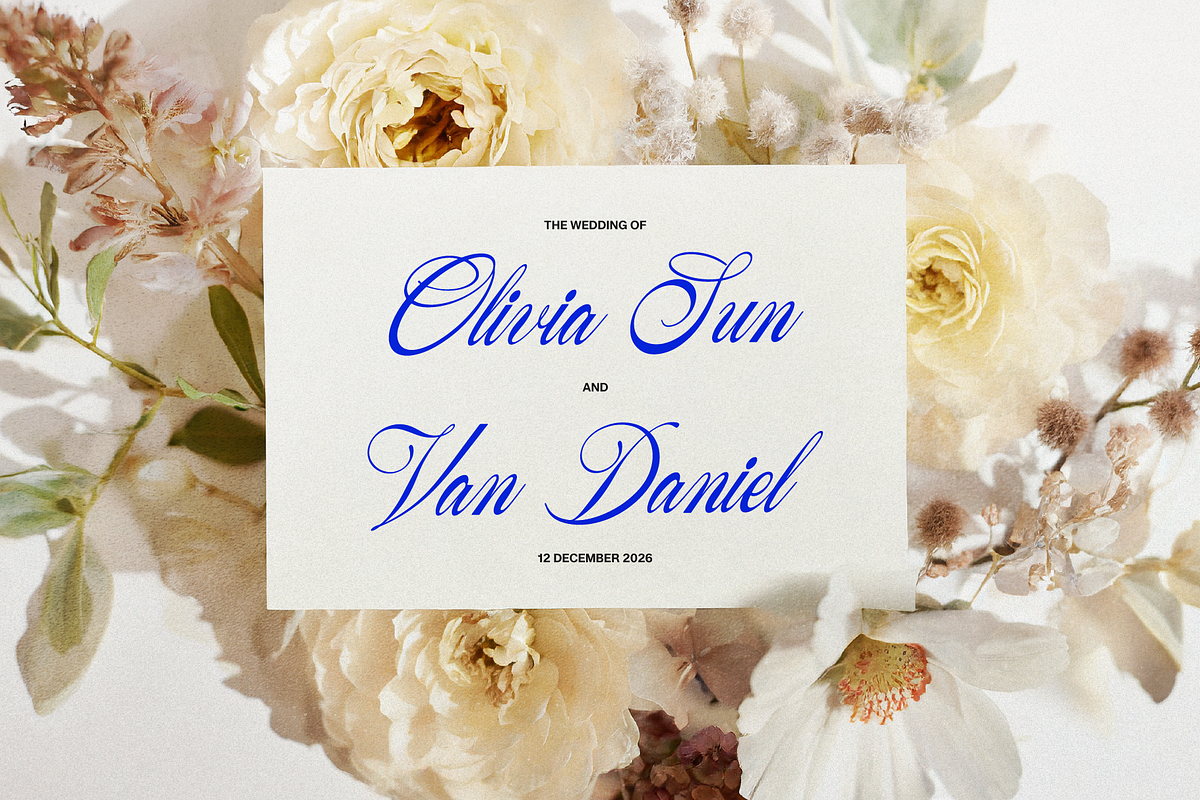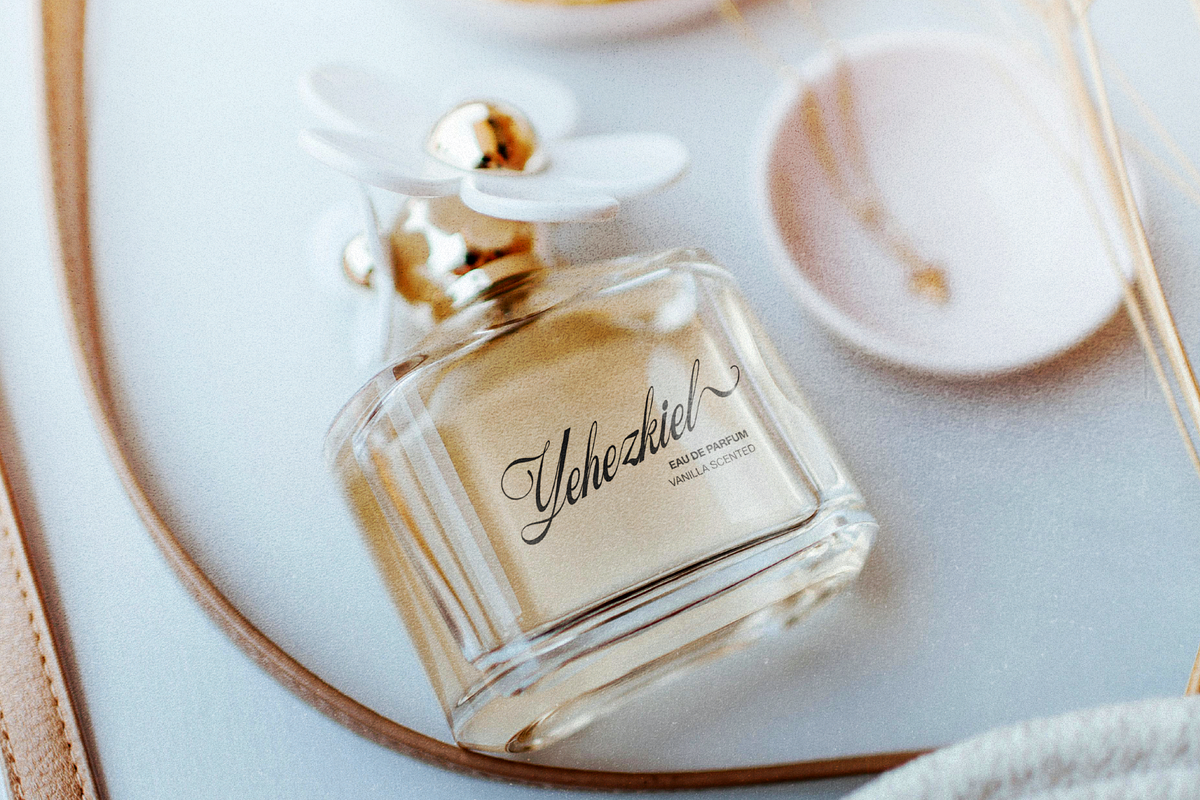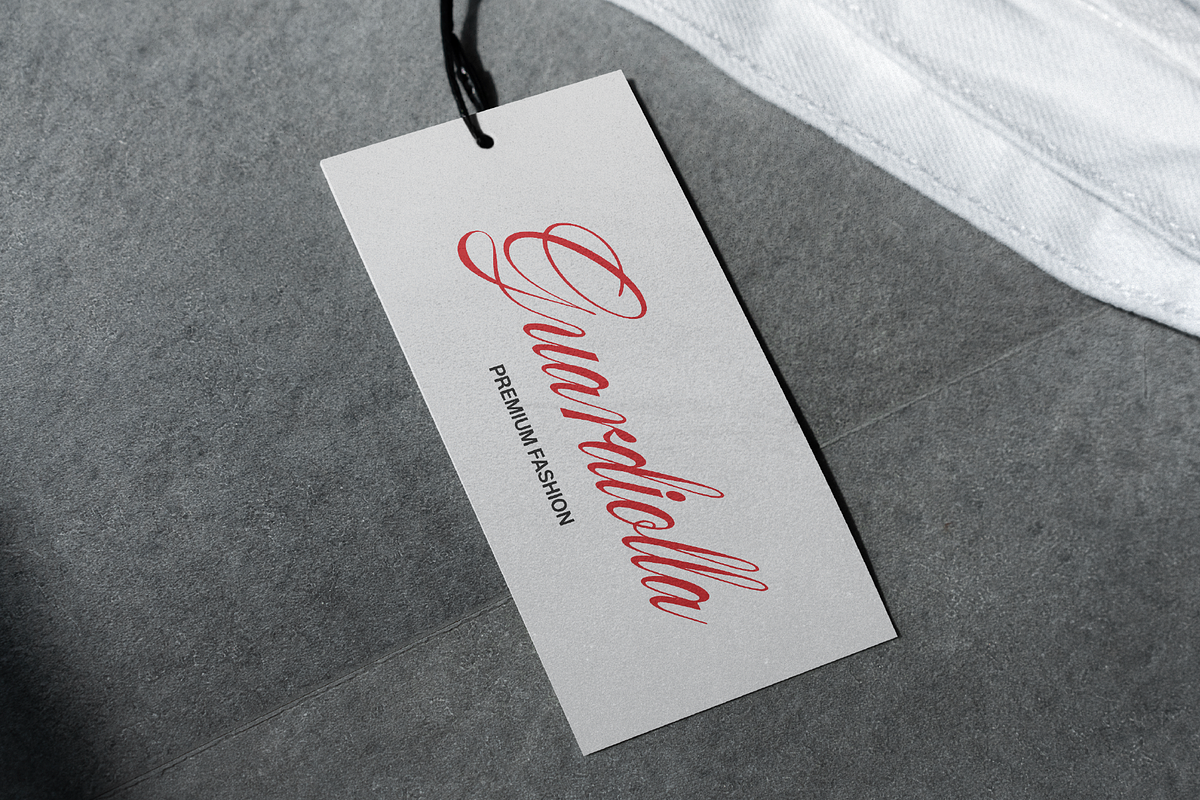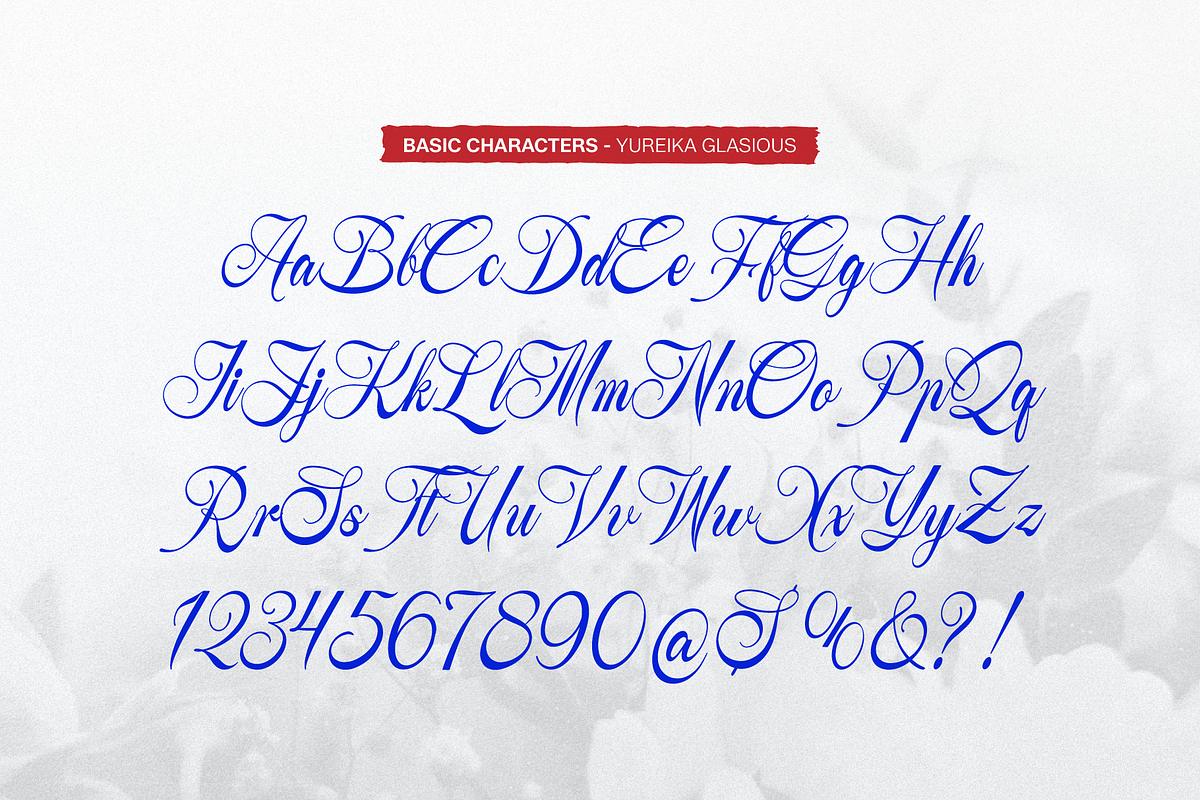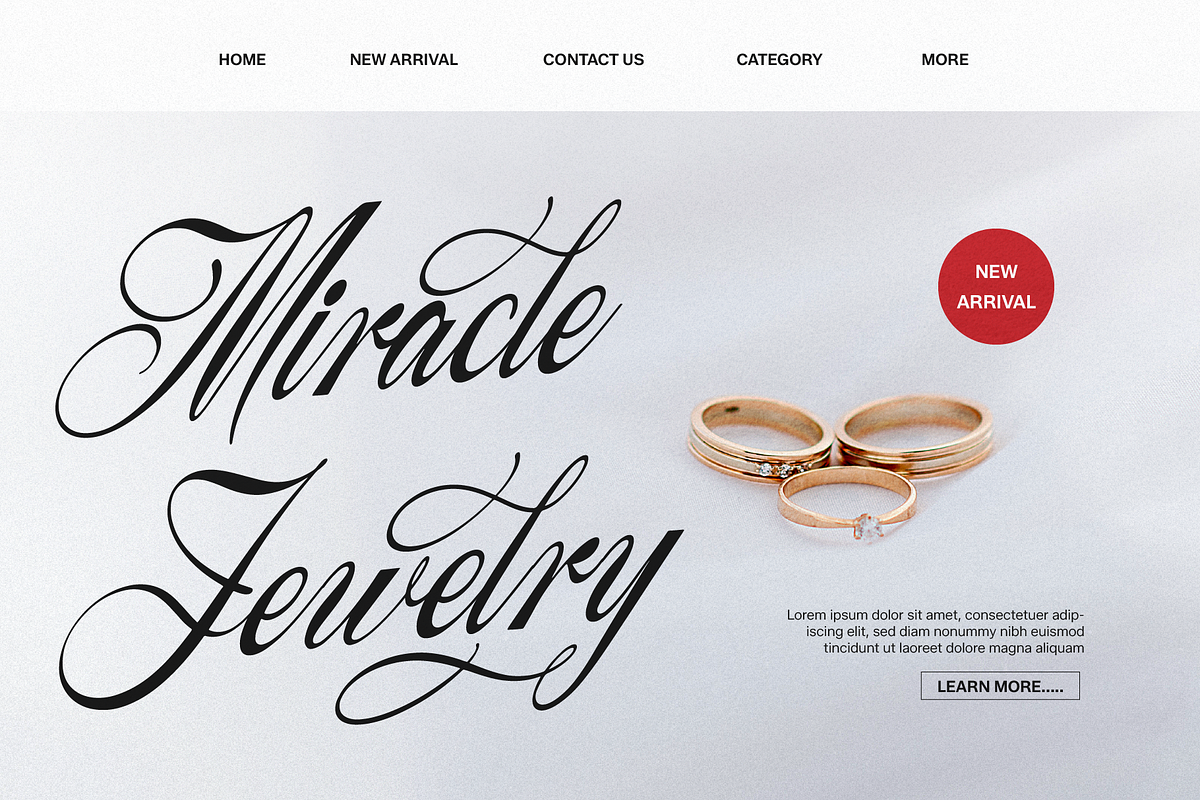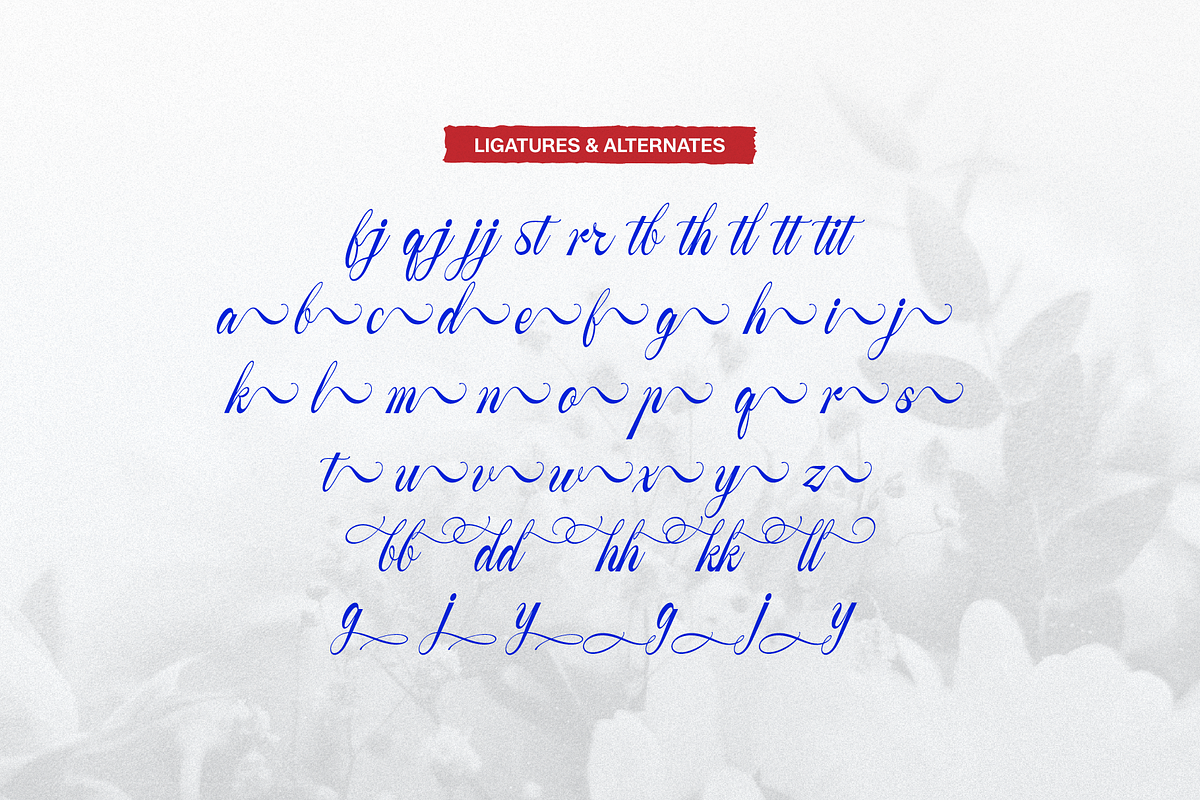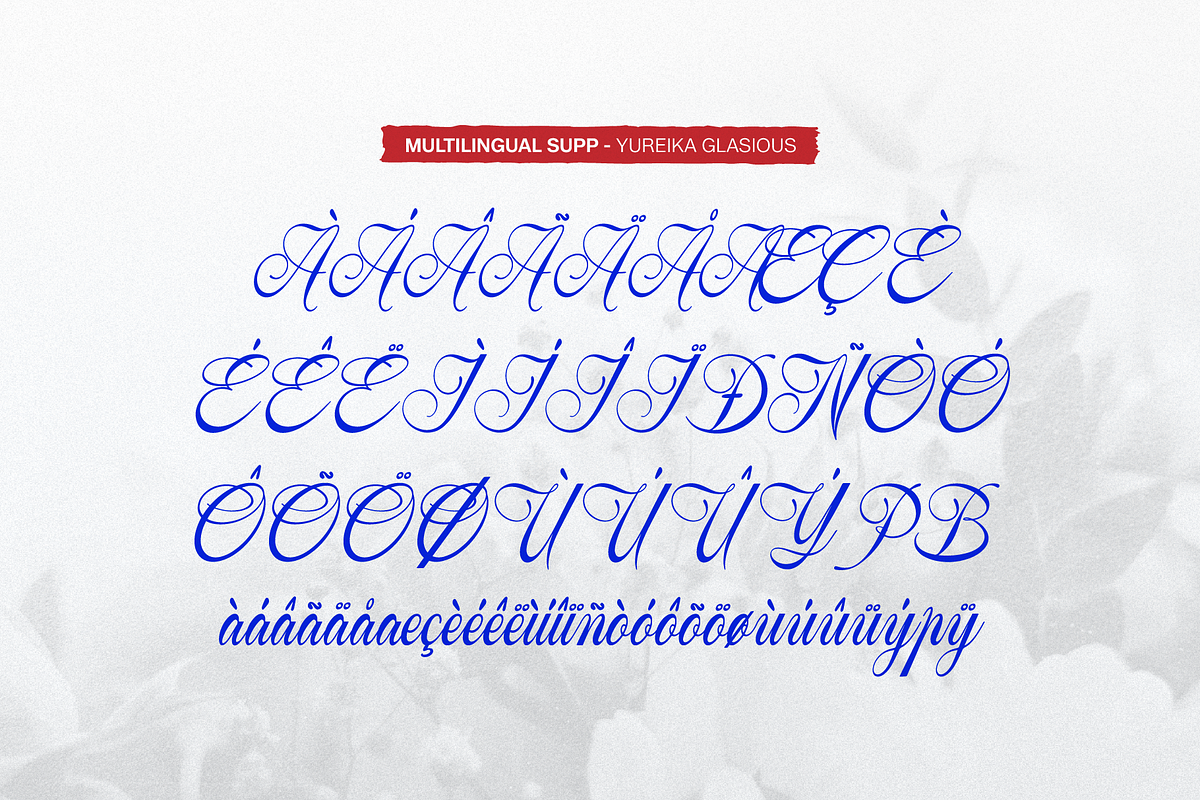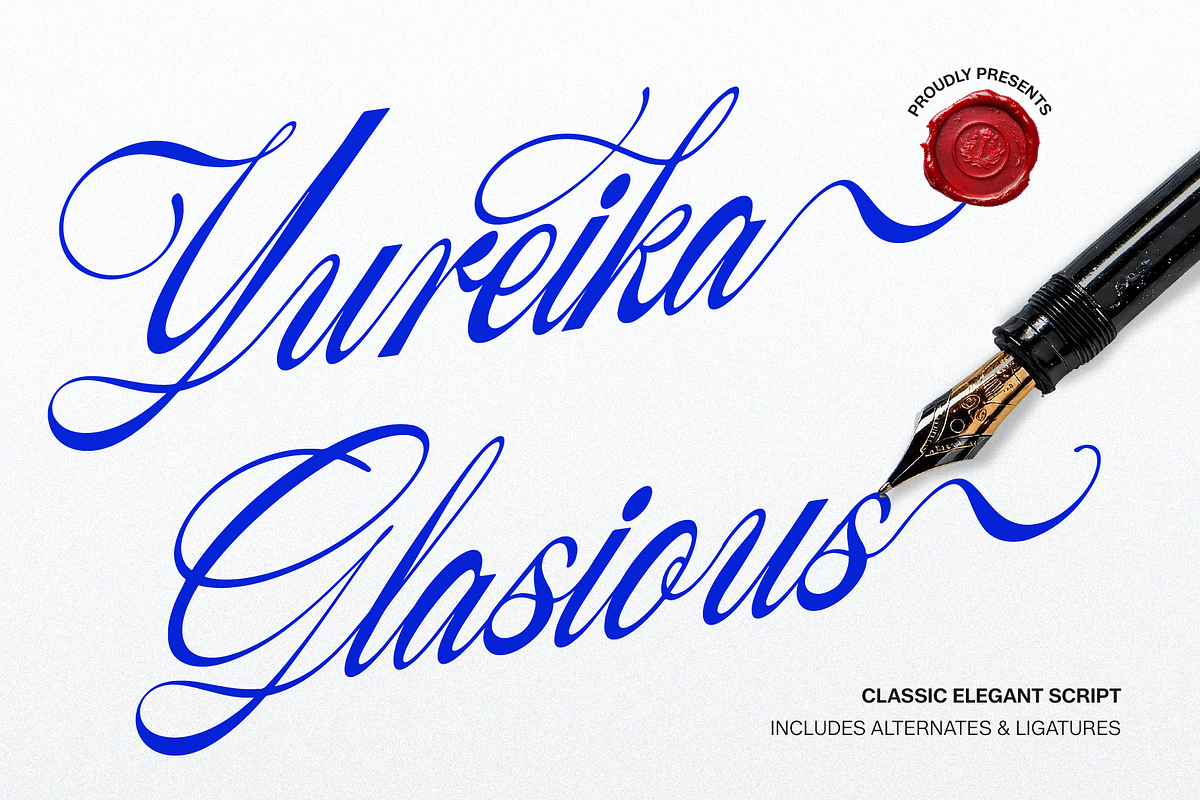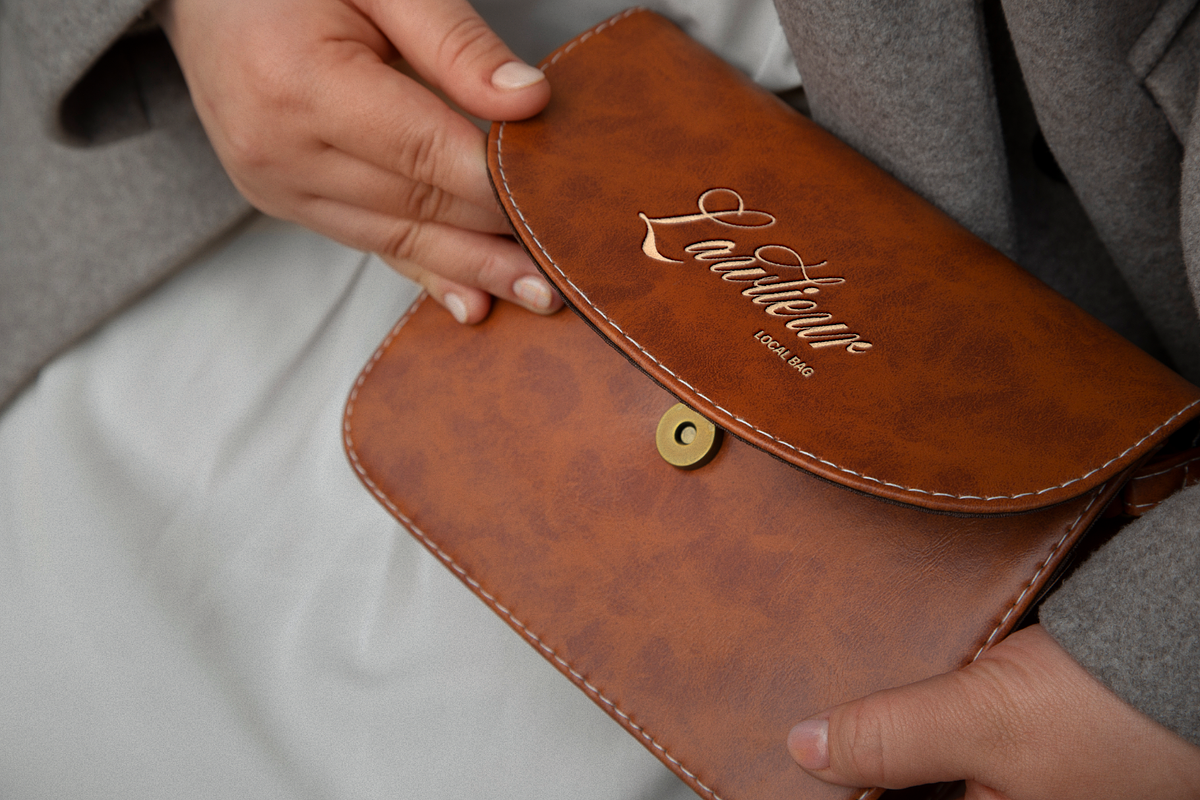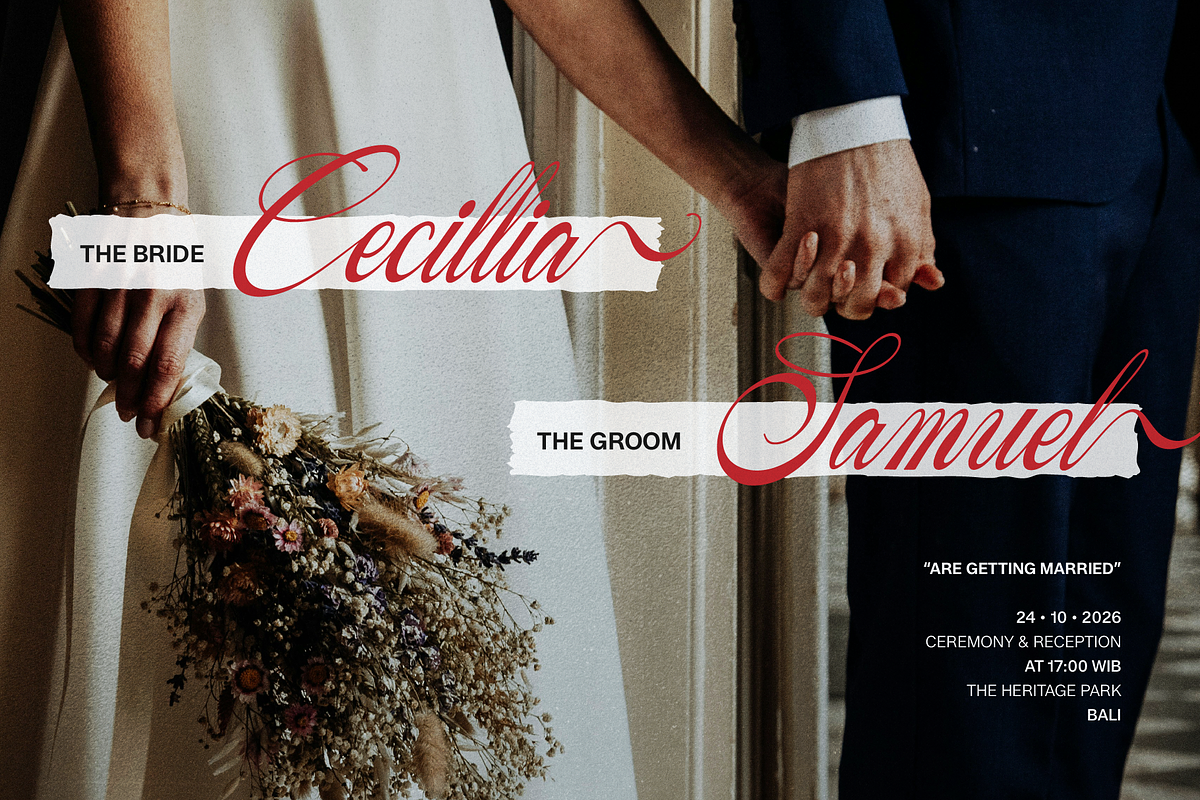
Yureika Glasious Classic Script
Yureika Glasious | Classic Elegant Script, from Gracetypestudio, suitable for any projects such as: logos, branding projects, homeware designs, product packaging, mugs, quotes, posters, shopping bags, t-shirts, book covers, name card, invitation cards, greeting cards, label, photography, watermark, special events, and all your other lovely projects that need a Script Font taste.
Alternate and Ligature
Fonts include multilingual support